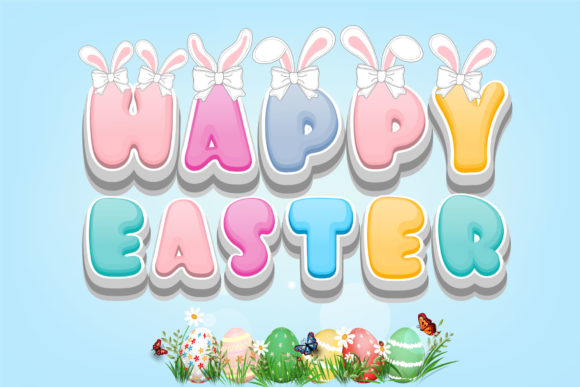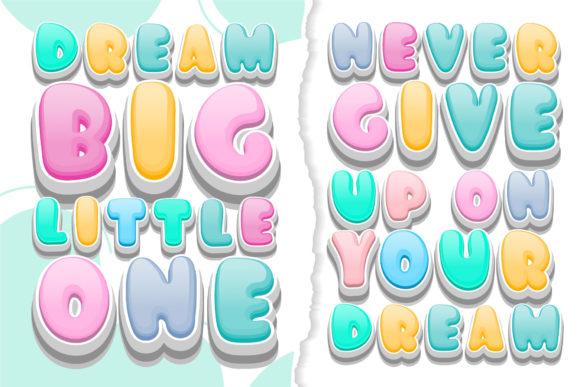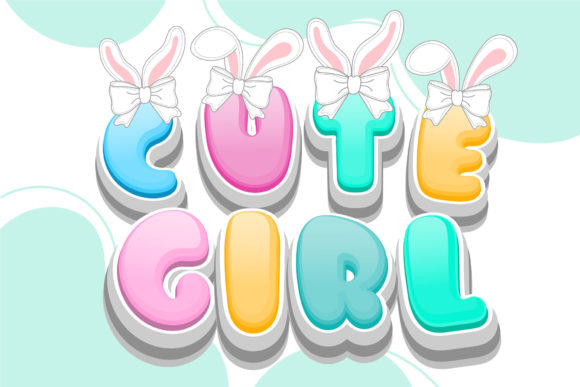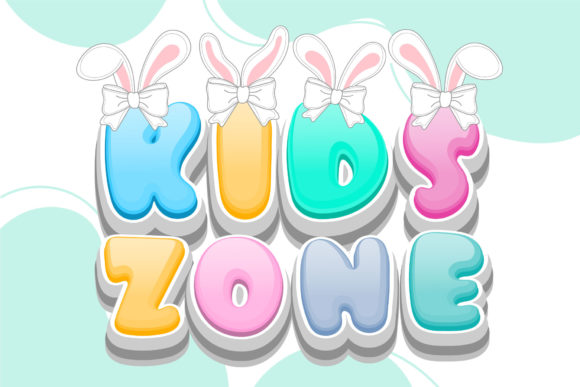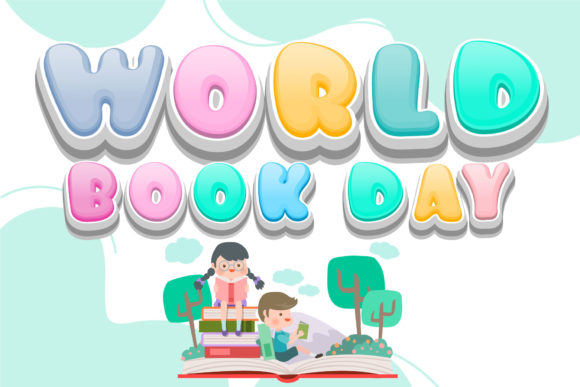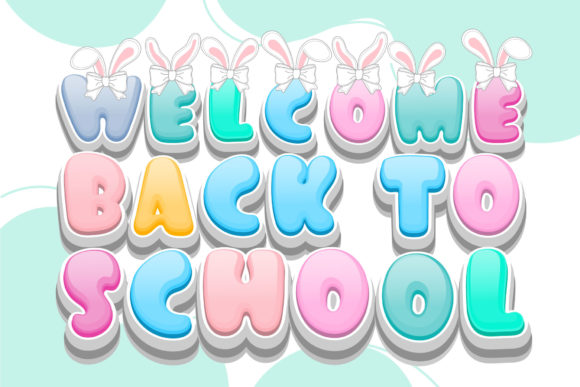
Easter Bunny Font: Add a Touch of Whimsy to Your Easter Creations
Are you looking for a font that will add a touch of sweetness and chicness to your Easter creations? Look no further than the Easter Bunny Font! This delightful font is perfect for designers and crafters who want to create beautiful and eye-catching Easter-themed projects. In this article, we’ll take a closer look at the Easter Bunny Font, its features, and how to use it to bring your Easter creations to life.
What is Easter Bunny Font?
Easter Bunny Font is a sweet, chic, and bubbly color font that is specifically designed for Easter-themed projects. This font is an Opentype-SVG file, which means it’s a high-quality font that can be used in a variety of design software, including PhotoShop, Illustrator, Silhouette, and Inkscape.
Key Features of Easter Bunny Font
- Color Font: Easter Bunny Font is a color font, which means it comes with a range of colors that can be used to add depth and dimension to your designs.
- Experiment with Colors: Easter Bunny Font comes with a range of colors, so don’t be afraid to experiment and find the perfect color combination for your design.
- Use it for Easter-themed Projects: Easter Bunny Font is specifically designed for Easter-themed projects, so get creative and make some beautiful Easter cards, posters, and more!
- Combine with Other Fonts: Easter Bunny Font can be combined with other fonts to create a unique and eye-catching design.
Easter Bunny Font is a sweet, chic, and bubbly color font that is perfect for designers and crafters who want to create beautiful and eye-catching Easter-themed projects. With its ease of use, compatibility with a range of design software, and range of colors, Easter Bunny Font is a must-have for anyone looking to add a touch of whimsy to their Easter creations.